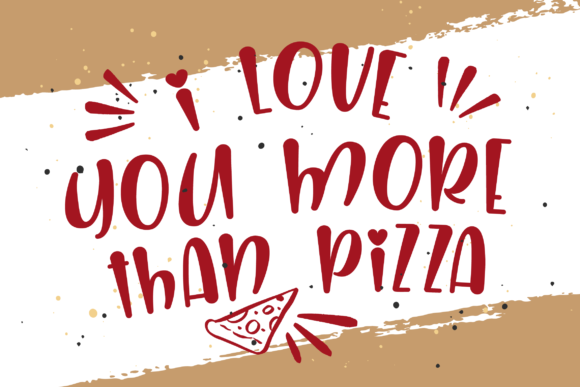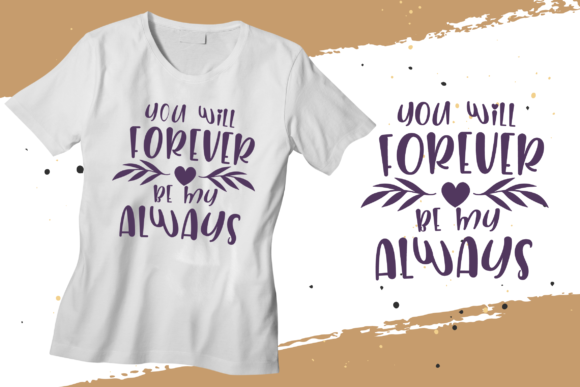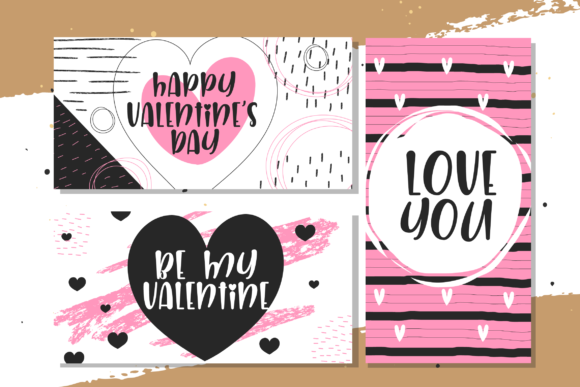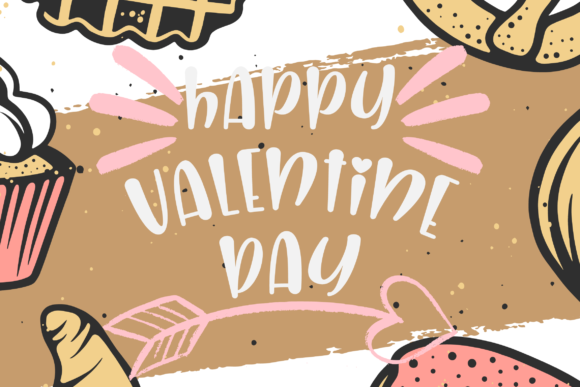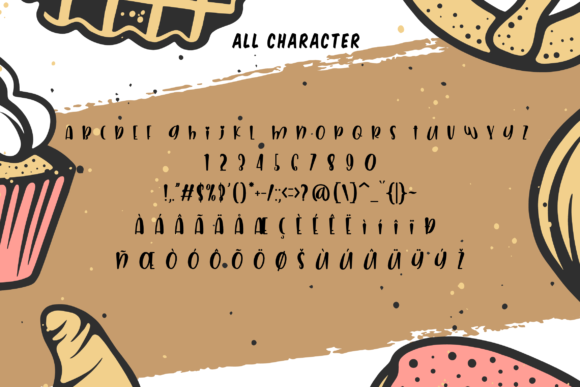
The Power of Handwritten Fonts in Design
Have you ever been in a moment of pure creativity, where a blank page stares back at you, and all you need is the perfect spark to bring your vision to life? That’s exactly what happened to me when I stumbled upon the Imagine Dreams Font. Its unique, natural handwriting style instantly captivated me, and I knew I had to learn more.
As a designer, I’ve always been on the lookout for fonts that add a personal touch to my projects. That’s exactly what the Imagine Dreams Font does – it brings a human element to your designs, making them more relatable and engaging. Whether you’re working on a personal project or a commercial campaign, this font is sure to elevate your work and leave a lasting impression.
Key Features of Imagine Dreams Font
- Unique Characteristics: The font features a dreamy, ethereal quality with intricate details and subtle nuances, making it perfect for creative projects and designs.
Designer Review: Imagine Dreams Font
Overall, I think the Imagine Dreams Font has a lot of potential, but it’s not without its flaws. Here are some of my thoughts on what works well and what doesn’t:
- ✨ The font’s unique and quirky feel is definitely eye-catching. It’s perfect for designers looking to add a touch of whimsy to their projects.
- ✨ The font’s character set is quite extensive, making it suitable for a wide range of applications, from body text to display headings.
- ✨ The font’s weight and spacing options provide a good range of flexibility for designers to customize their layout.
However, there are a few limitations that I think need to be addressed:
- ⚠️ The font’s legibility can be a bit of an issue, especially at smaller font sizes. The letterforms can become quite crowded and difficult to read.
- ⚠️ The font’s kerning could be improved, especially in certain combinations of letters.
- ⚠️ The font’s functionality is quite basic, with limited OpenType features and no support for vertical writing systems.
Overall, I think the Imagine Dreams Font is a solid choice for designers looking for a unique and quirky font, but it’s not without its limitations. With a bit of tweaking and refinement, I think it could be a real showstopper.
Imagine Dreams Font is ideal for creative projects that require a whimsical and dreamy feel.
Use it for:
1. Children’s book illustrations.
2. Fantasy and science fiction art.
3. Wedding invitations and stationery.